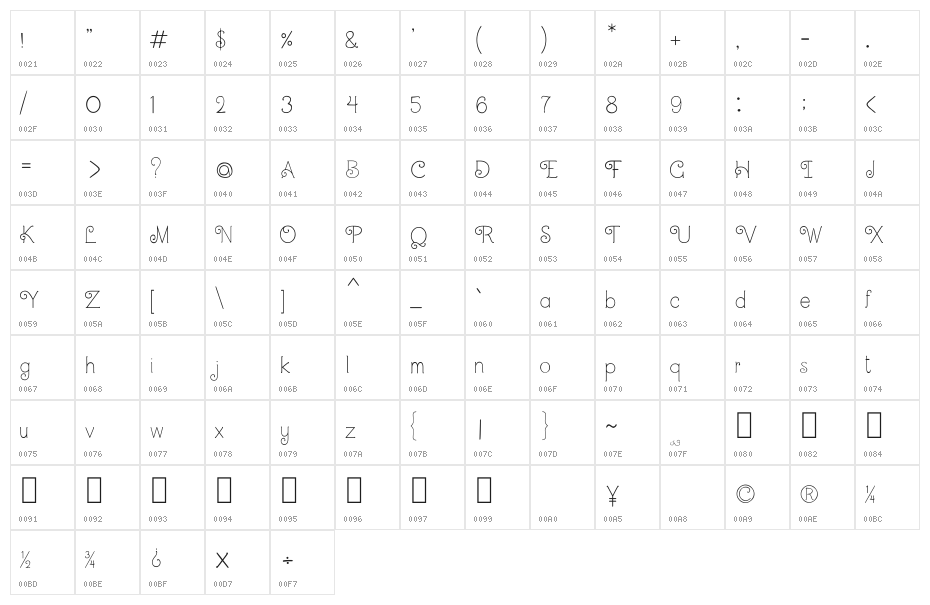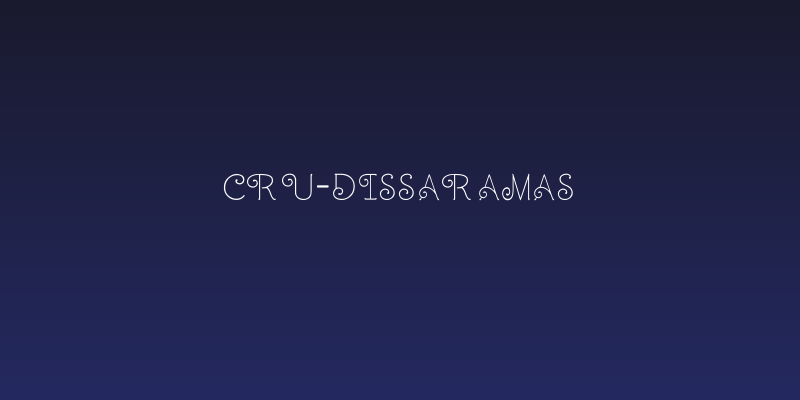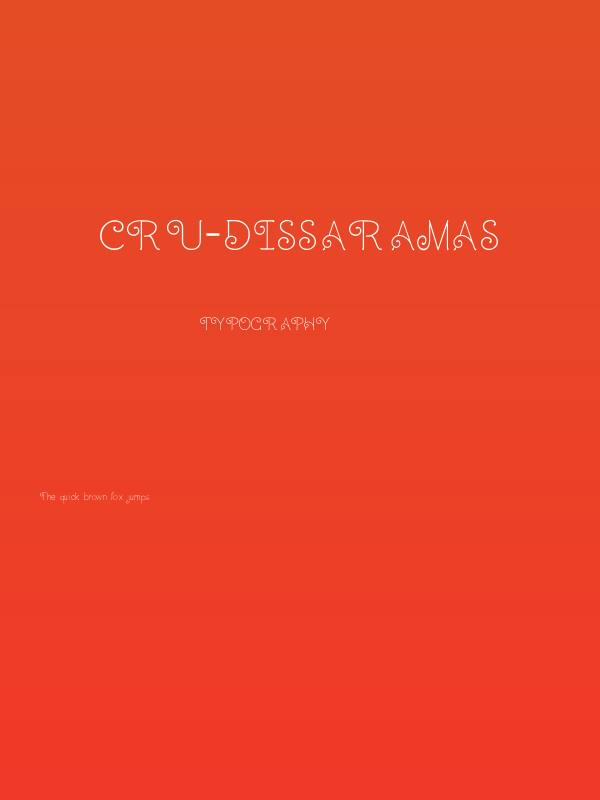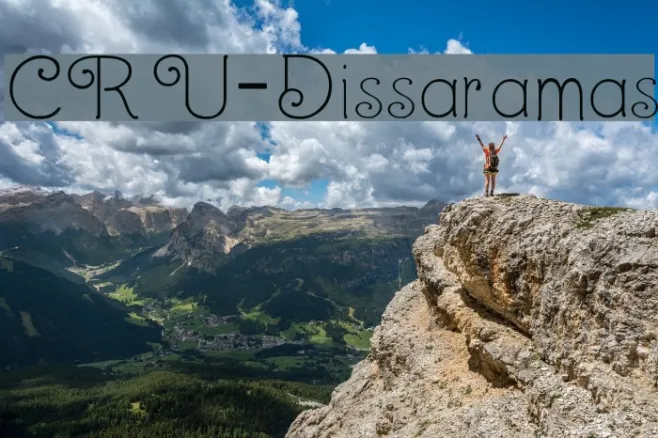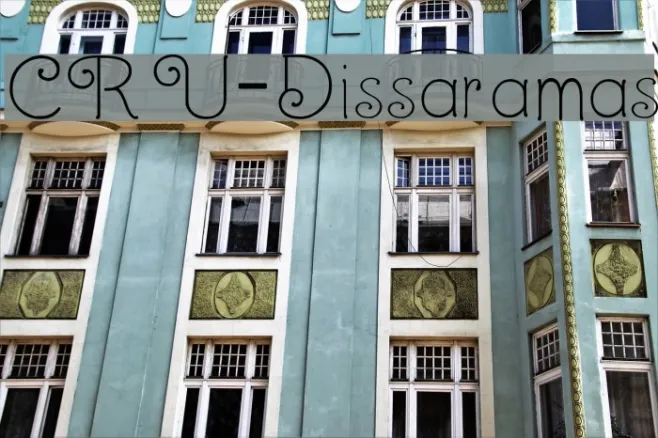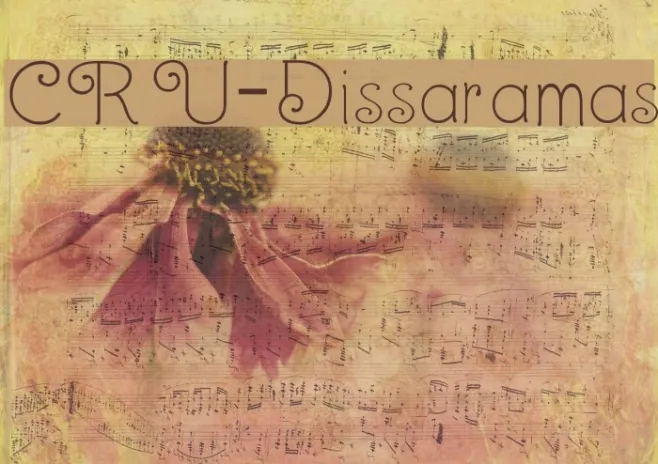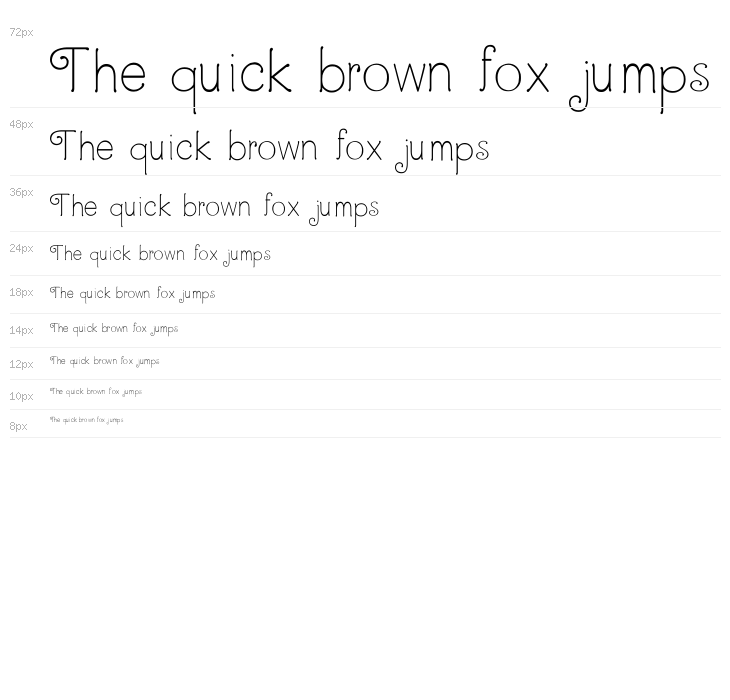
CRU-Dissaramas Font
CRU-Dissaramas Description
This font features a whimsical and decorative style, characterized by its curly and ornate letterforms. The uppercase letters exhibit elaborate swirls and loops, giving them a playful and artistic appearance. The lowercase letters maintain a more straightforward design, yet they still carry a touch of elegance with subtle curves. The numbers are consistent with the overall style, offering a cohesive look. Special characters are designed with the same decorative flair, making this font suitable for creative and expressive projects. The overall design is both unique and eye-catching, making it ideal for use in projects that require a touch of creativity and personality.
| Use Case | Headlines, Logos, Artistic projects |
| Proposed Projects | Ideal for invitations, greeting cards, artistic posters, and branding materials that require a playful and creative touch. |